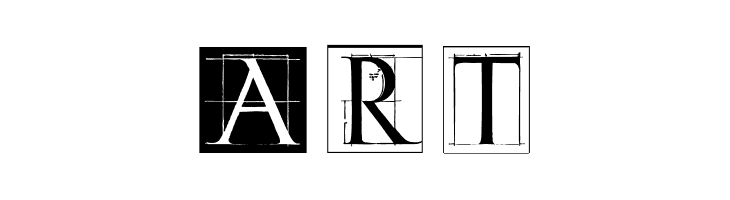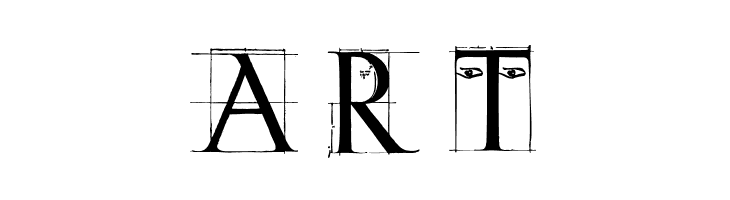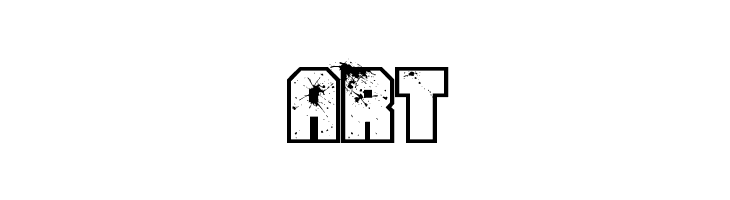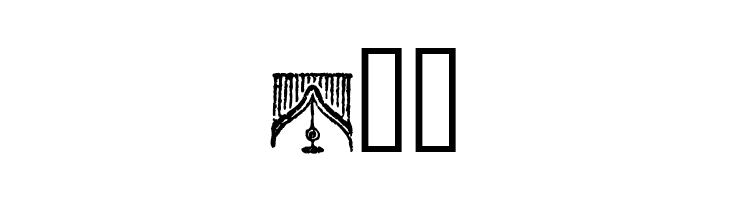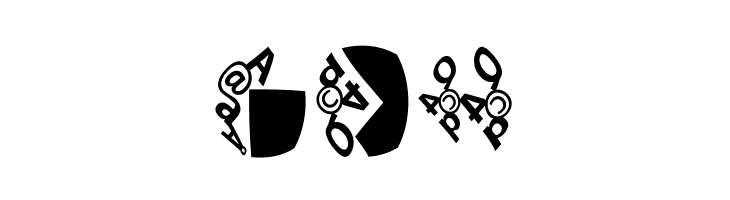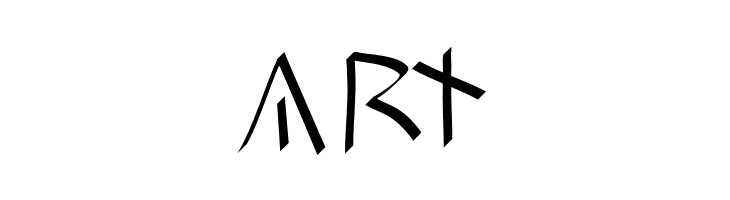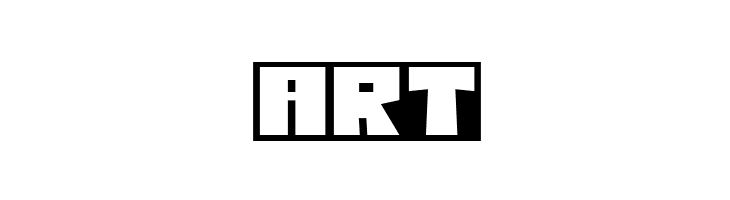
• ErikGCapsSketches
A sketch-like, artistic font with intricate detailing and pronounced serifs.
• ErikGCapsSkInvers
A decorative serif font with map-like details and medium contrast, ideal for creative projects.
• Essene Dingbats
A decorative set of intricate and artistic symbols with a vintage, mystical style.
• Essene Symbols
A collection of intricate, mystical symbols with esoteric and celestial motifs.
• EtcherSkesch Inverse
A bold, geometric font with a strong, block-like design.
• EtcherSkesch Regular
A bold, geometric font with blocky, angular letterforms and uniform thickness.
• EtruskRough
A bold, angular font with a rough, hand-drawn style and geometric shapes.
• Euphemia UCAS Bold
• Even Badder Mofo
A bold, distressed font with a rugged, impactful style.
• EveryLetterAPicture
An abstract and artistic design with unique, intricate illustrations for each character.